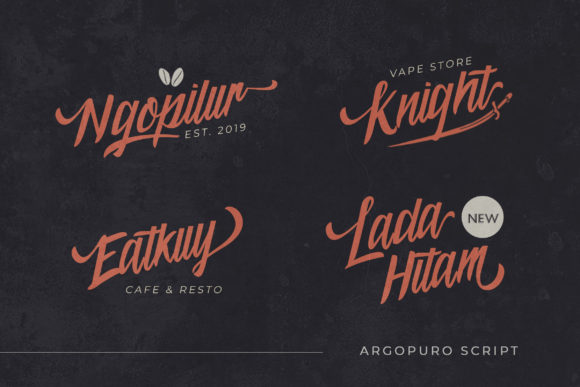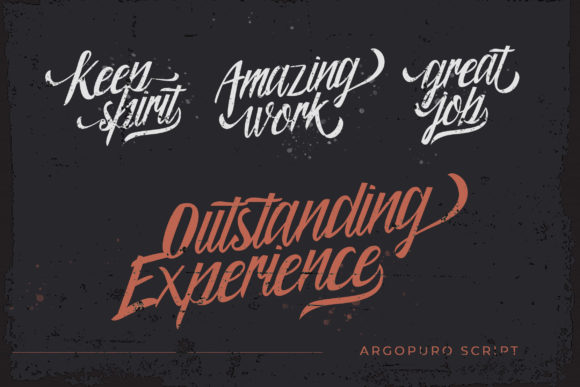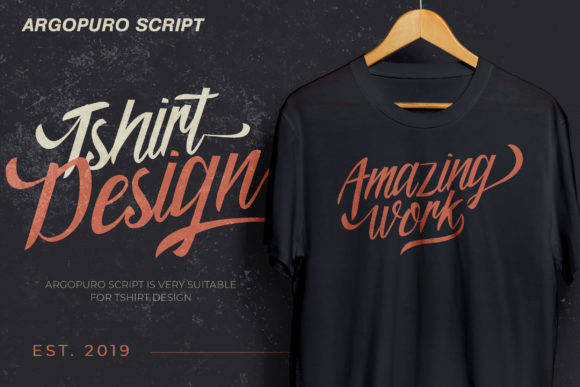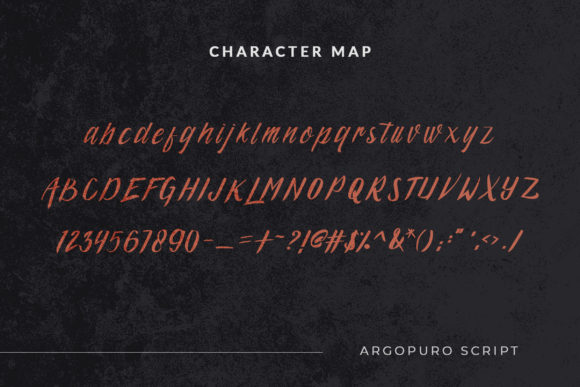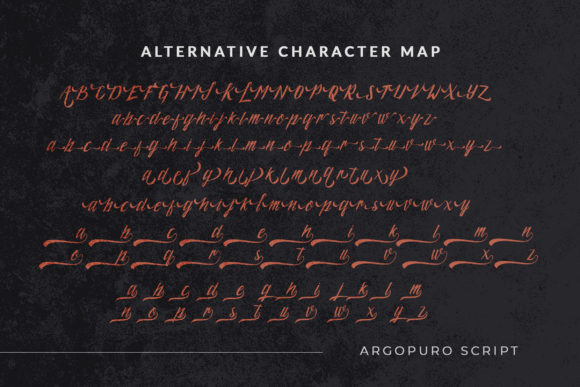
HomeScript FontsArgopuro Script Font Script Fonts Argopuro Script Font FacebookXPinterestWhatsApp Argopuro Script Font Poster 2 Argopuro Script Font Poster 3 Argopuro Script Font Poster 4 Argopuro Script Font Poster 5 Argopuro Script Font Poster 6 Argopuro Script Font Poster 7 About Argopuro Script Font Argopuro is a cool script with a stunning feel. It will turn any design idea into a true standout! DOWNLOAD ON CREATIVE FABRICAThis font is sold and delivered by Creative Fabrica. Font Canyon may earn a commission if you buy through this link. People also explored Aqilla Script Listan Type Font Pumpkin Sonar Font Royal Castle Font Domain Font Aghmeeta Font Half Soldier Font Kasengor Font Coffee Lover Font 332 0 TagsArgopuro Script Font Previous articleArtepark FontNext articleMaudy Audy Font LEAVE A REPLY Cancel reply Comment: Please enter your comment! Name:* Please enter your name here Email:* You have entered an incorrect email address! Please enter your email address here Website: Save my name, email, and website in this browser for the next time I comment. Personal Use Free Hillgates Personal Use Free Read more about this font Maharany Personal Use Free Read more about this font Farmhouse Christmas Personal Use Free Read more about this font Blast Personal Use Free Read more about this font BLOG Free vs Paid Fonts: Why Investing in Premium Fonts Is Worth It Free vs Paid Fonts: Why Premium Fonts Are Worth It in 2025 The debate of free vs paid fonts continues in the design world. While... Exploring Font Trends Best Fonts for YouTube Videos: Make Your Thumbnails Stand Out The 10 Best Handwriting Fonts to Add Personality to Your Designs